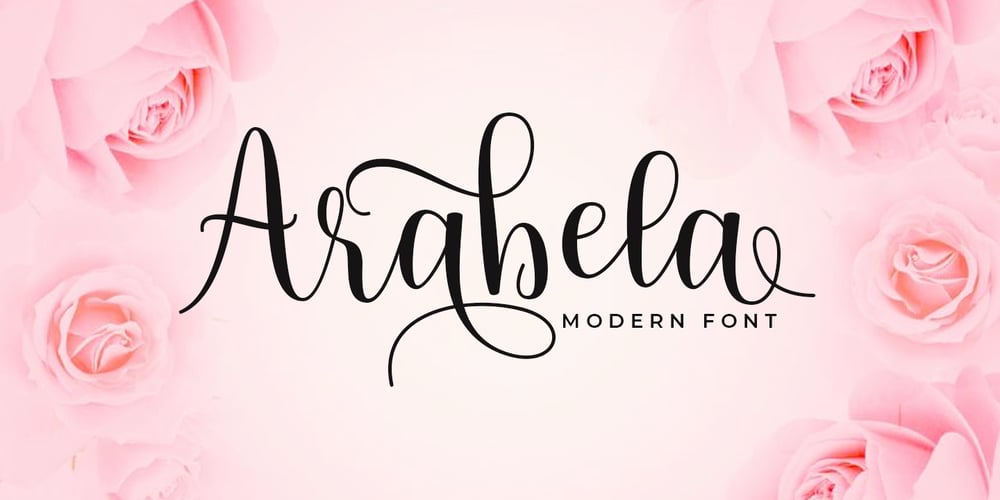
Arabela
Arabela font
Arabela Font Family was designed by Muhammad Nasir and published by Aqeela Studio. Arabela contains 1 styles and family package options. Arabela is a modern and beautiful calligraphy script, ideal for use in elegant designs. This font has a dancing look and adds a lot of femininity to all types of projects.